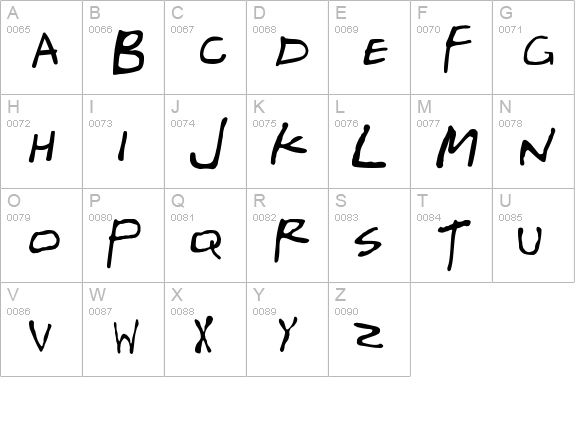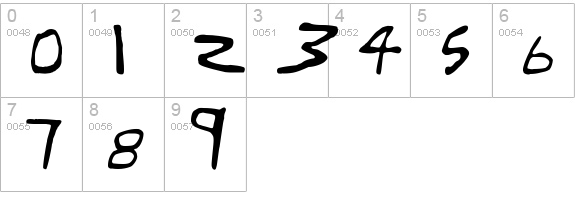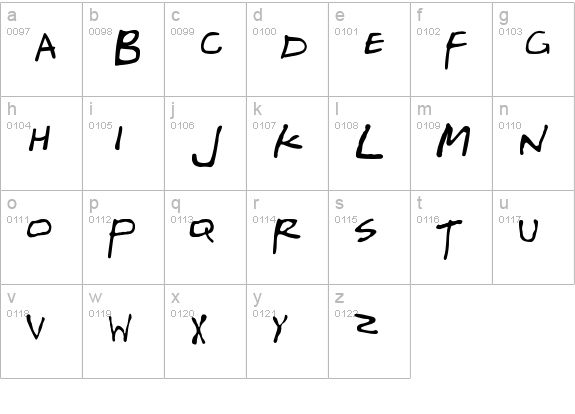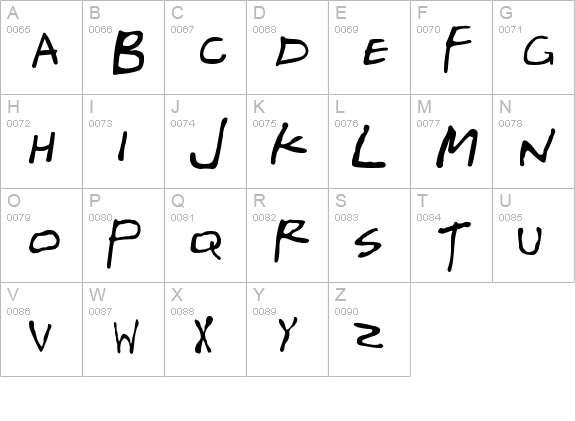
Gregor Miller's Friends Font Font Details
Gregor Miller's Friends Font is a charming and whimsical typeface that exudes a sense of warmth and friendliness. With its playful curves and unique letterforms, this font is perfect for adding a touch of personality to your designs. Whether you're creating invitations, greeting cards, or social media graphics, Friends Font will bring a cheerful and inviting feel to your projects. The best part? Gregor Miller's Friends Font is completely free to download at FontsMarket.com. Yes, you read that right - you can easily access this delightful font at no cost, making it a fantastic choice for both personal and commercial use. Don't miss out on the opportunity to add a touch of fun and friendliness to your designs with Friends Font!